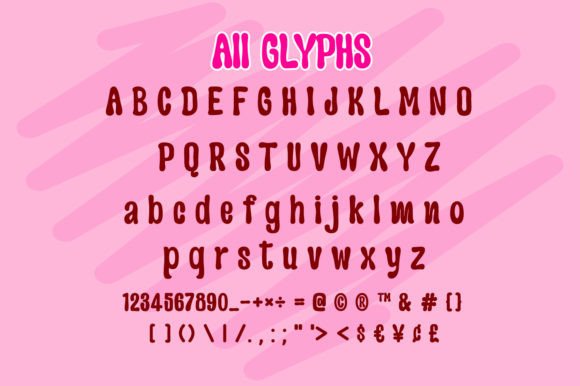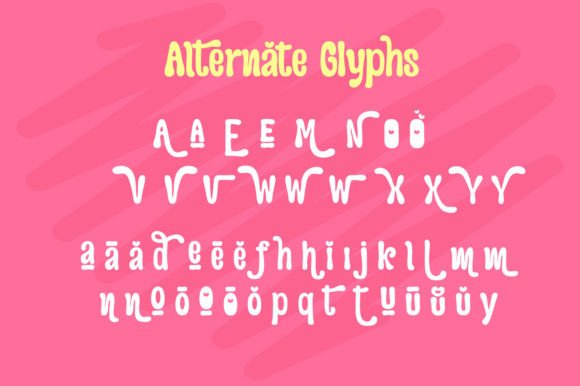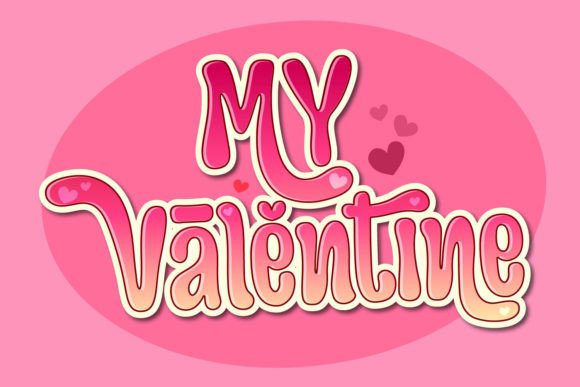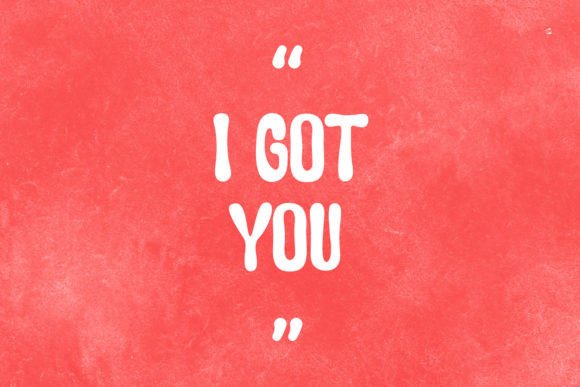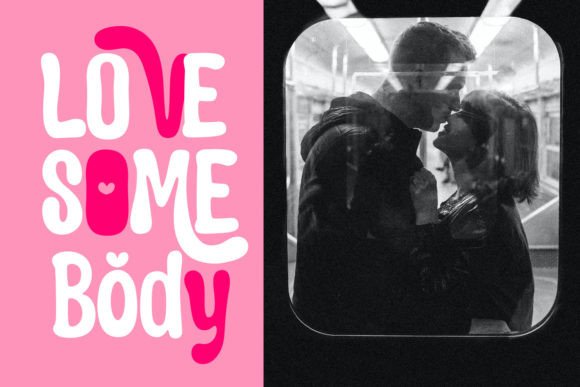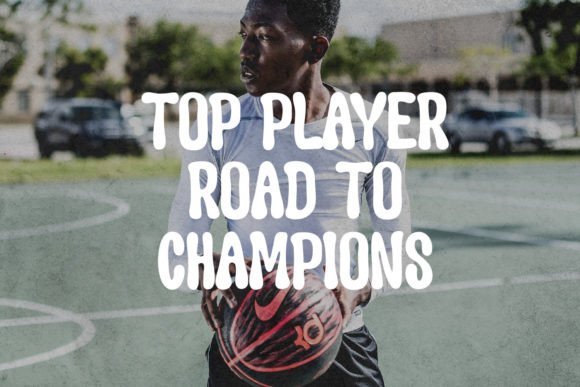
Introduction to Home of Love Font
Home of Love is an adorable display font with a groovy.
Quirky and a little funky This font has the potential to elevate any creation while adding a groovy touch.
Key Features of Home of Love Font